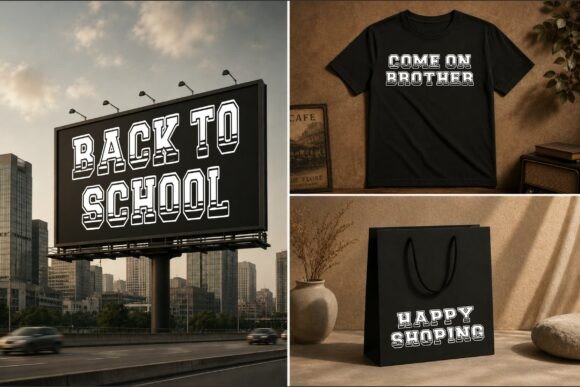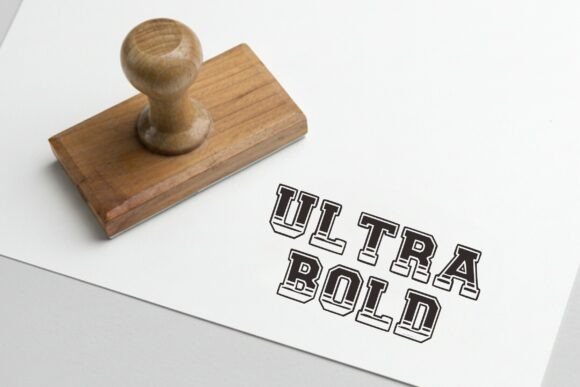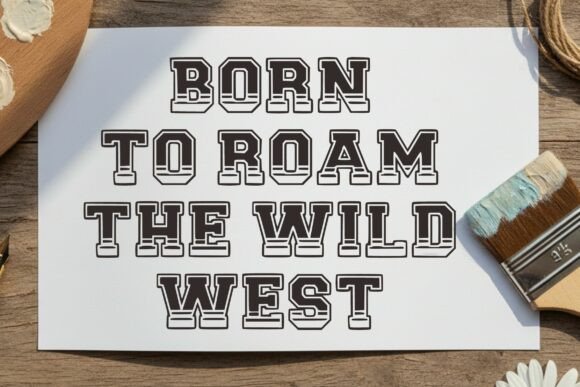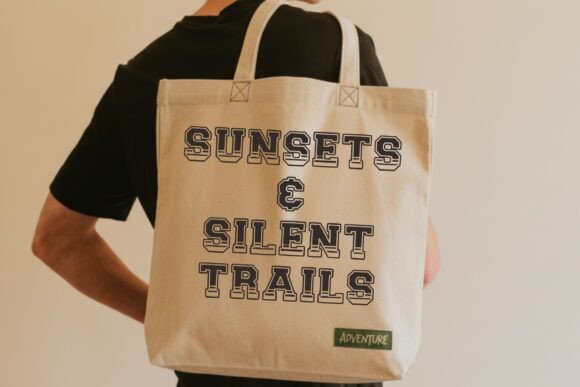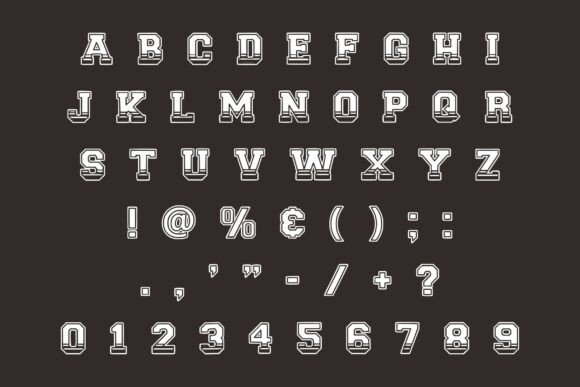
Introduction to Golden School Font
Golden School is a bold varsity display font inspired by classic collegiate lettering and vintage athletic typography.
Featuring strong block characters with layered outlines and retro school aesthetics, this font is perfect for sports branding, university apparel, team logos, posters, merchandise, mascots, and retro-inspired designs Its authentic varsity style delivers a powerful and energetic look suitable for both modern and nostalgic projects.